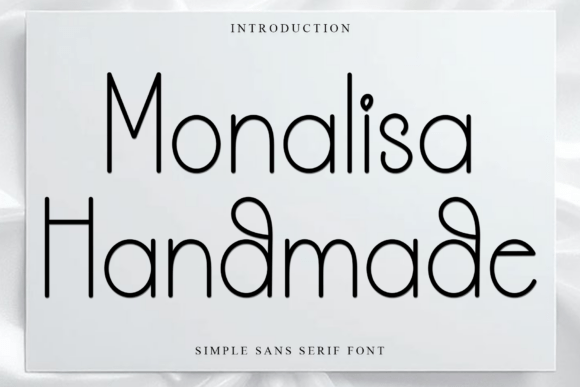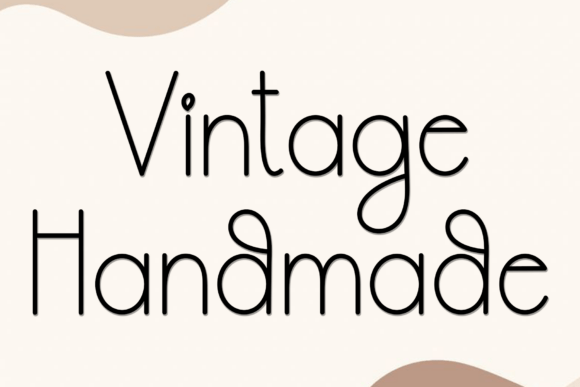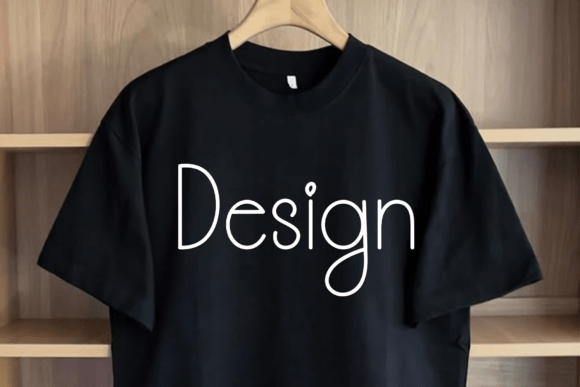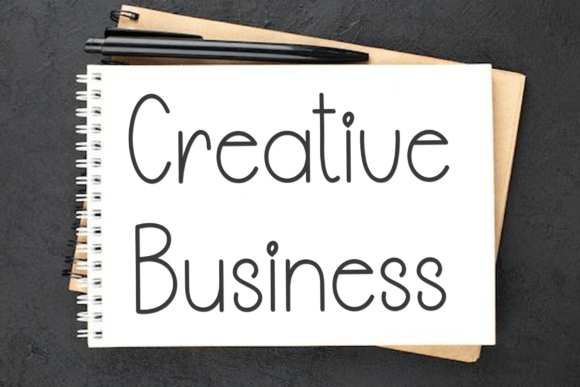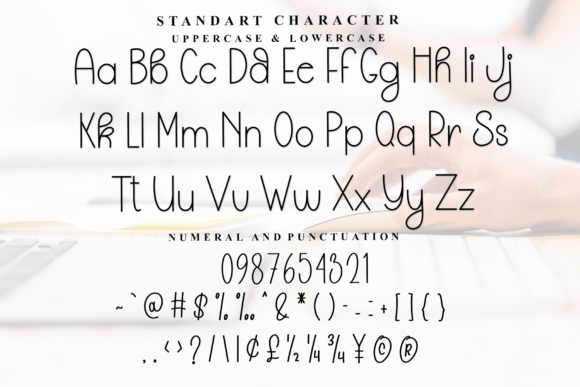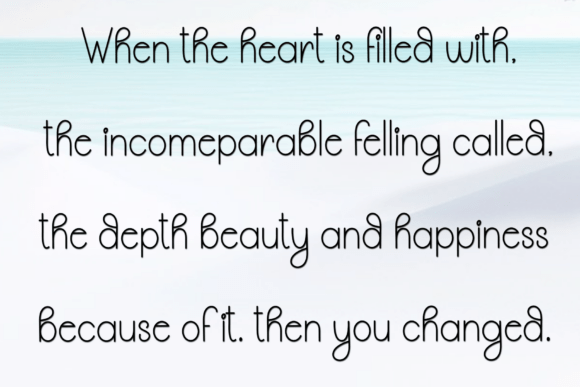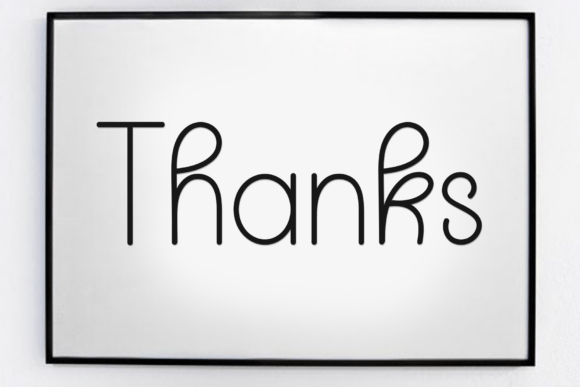
Monalisa Handmade Font
Monalisa Handmade is a lovely and timeless sans serif font. It is the best choice for creating
eye catching logos, branding and quotes. Every letter has a unique and beautiful
touch, which will make your design come alive!